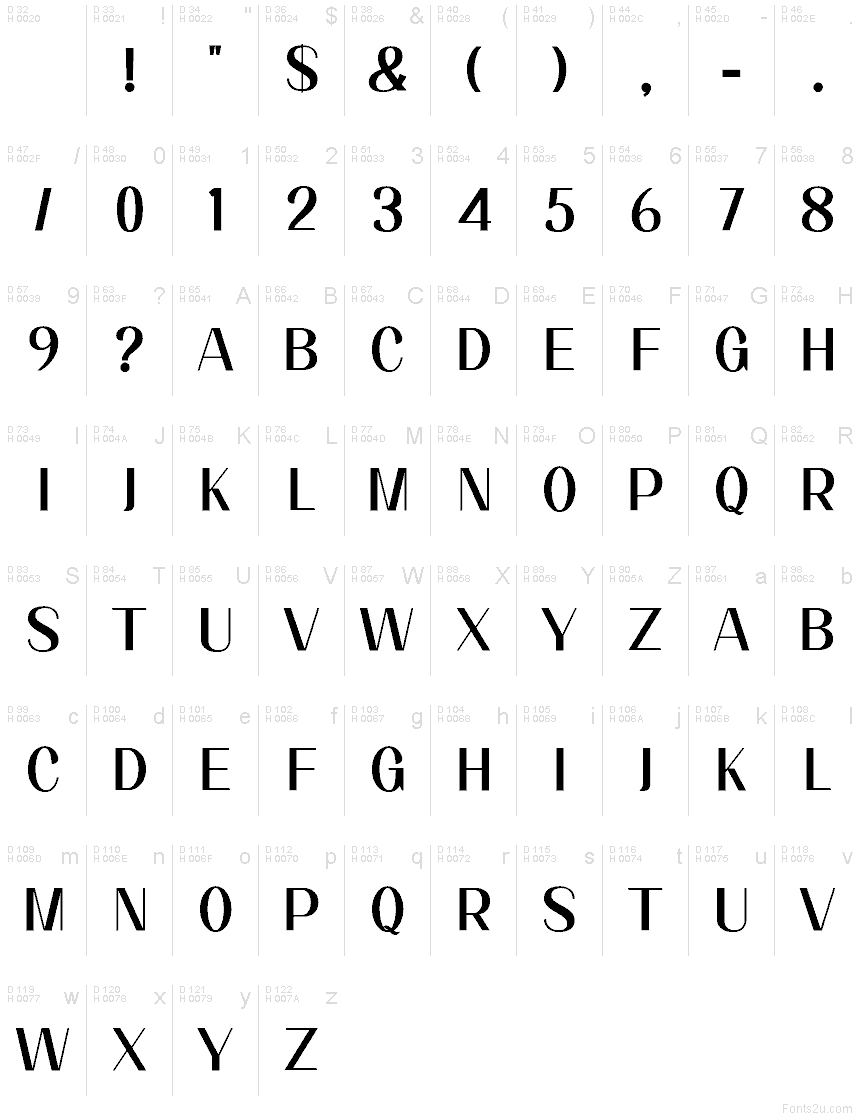
Makeup
Makeup font by Setyo Wati is an elegant sans serif font that offers both sophistication and class. It has a modern aesthetic with clean lines that make it multi-functional. Presenting a luxury feel with each letter, the font is exceptional for projects that demand absolute attention to detail.
Create magazine covers, posters, book titles, clothing prints, merchandise branding designs using this free sophisticated typeface. Other uses include fine art photography watermarking purposes and graphic heading overlays.